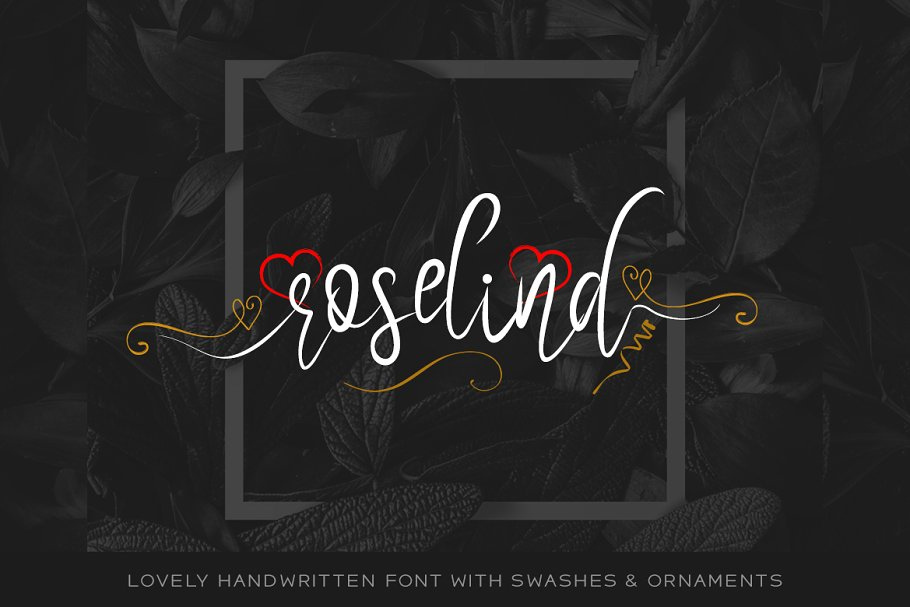
Roselind Font
Roselind Font is perfect for romantic wedding services, elegant floral design studios, graceful feminine brands, beautiful beauty salons, sophisticated rose gardens, and enchanting romantic venues. Its blooming character makes it ideal for bridal boutiques, romantic event planning, elegant flower shops, graceful jewelry designers, beautiful spa retreats, and any project requiring romantic elegance with floral sophistication and timeless feminine beauty appeal.
This font is exciting because it captures the delicate beauty and romantic essence of blooming roses while delivering exceptional functionality for brands celebrating love, beauty, and the timeless elegance that defines romantic experiences and feminine sophistication. The gracefully crafted letterforms seem to bloom with natural beauty and romantic charm, creating typography that evokes the gentle fragrance and visual splendor of perfect rose gardens in full flower.
The Roselind Font family typically includes Light, Regular, Medium, and Bold weights with romantic alternates, floral ligatures, and elegant decorative elements that enhance its blooming personality. This comprehensive collection enables romantic professionals to create beautiful brand systems that maintain floral authenticity while offering creative flexibility for various romantic applications requiring both elegant appeal and contemporary feminine market positioning.
Whether you're developing identity systems for romantic service providers, creating materials for elegant floral businesses, or designing promotional content for beautiful feminine brands, Roselind Font Free Download delivers the romantic elegance and floral sophistication that connects with audiences seeking beauty, romance, and elegant feminine experiences. Its blooming presence ensures memorable brand recognition across digital platforms and print materials, making it perfect for websites, mobile applications, and romantic campaigns that celebrate floral beauty, elegant romance, and the transformative power of feminine grace with contemporary sophistication and authentic romantic charm.